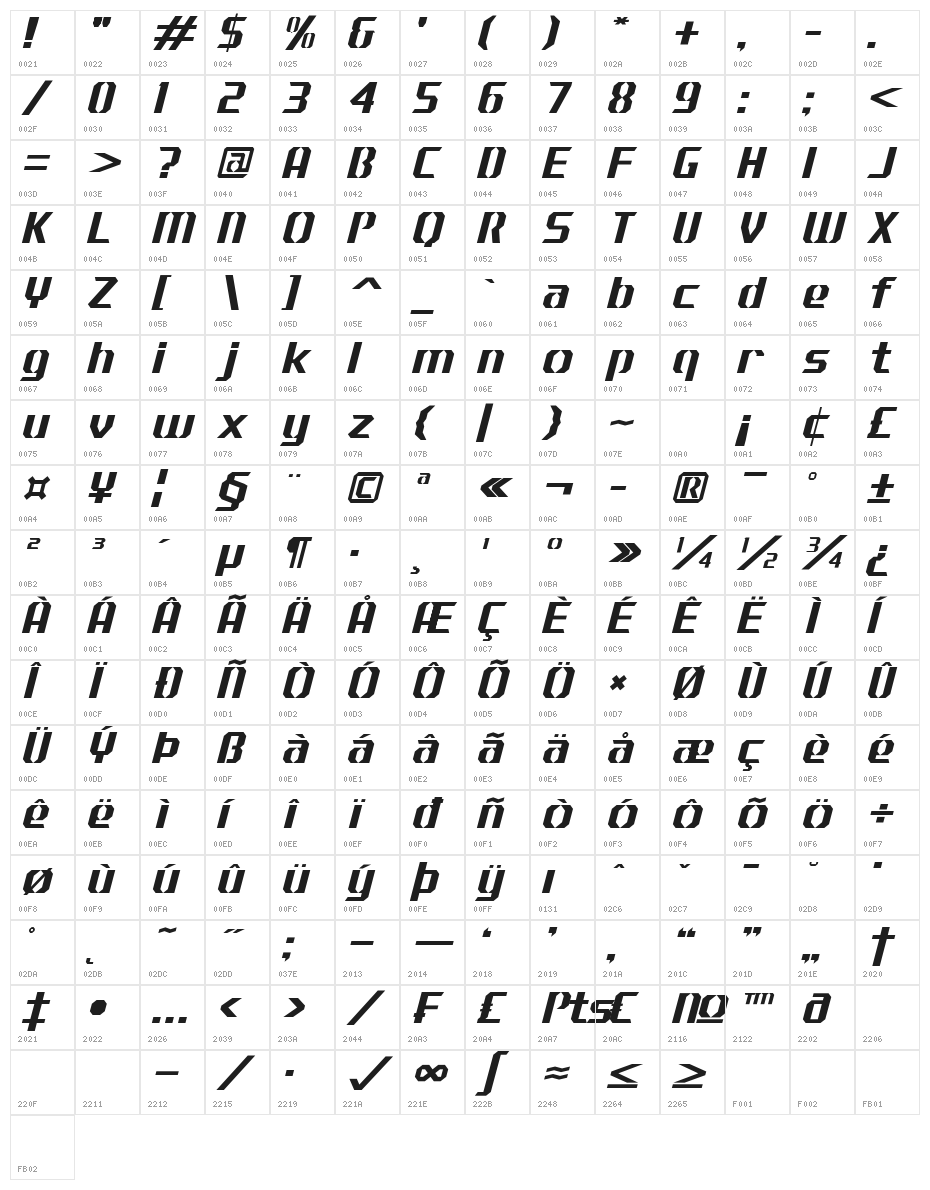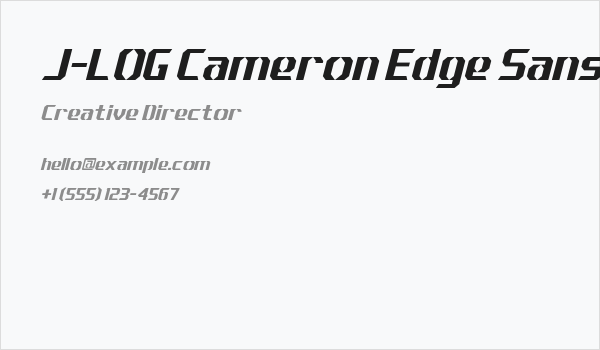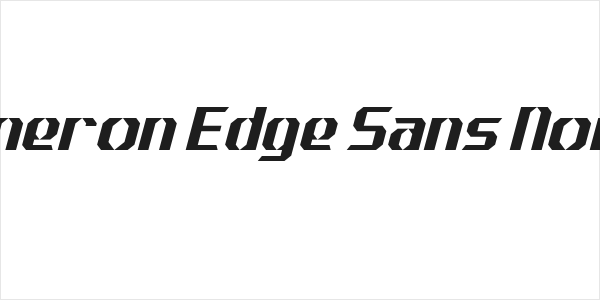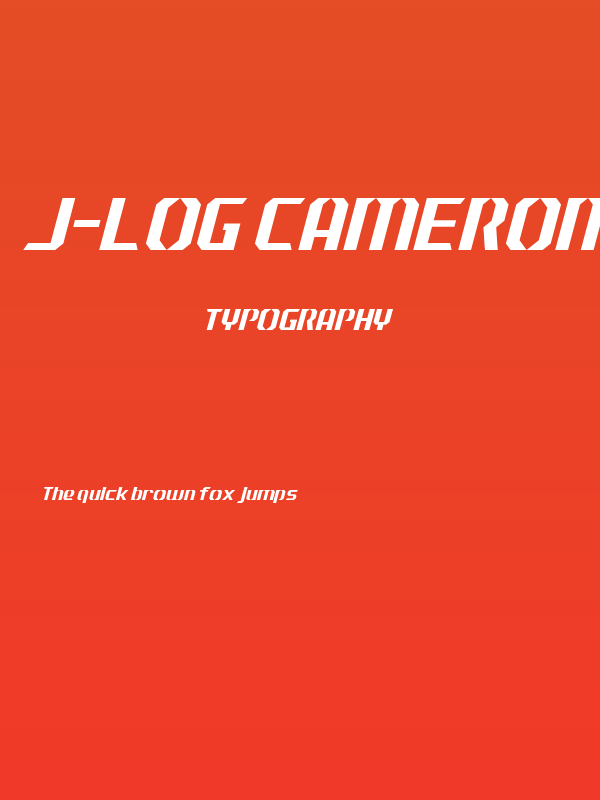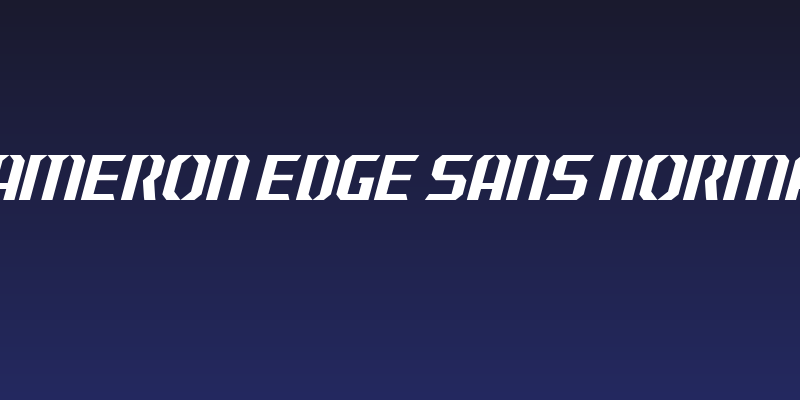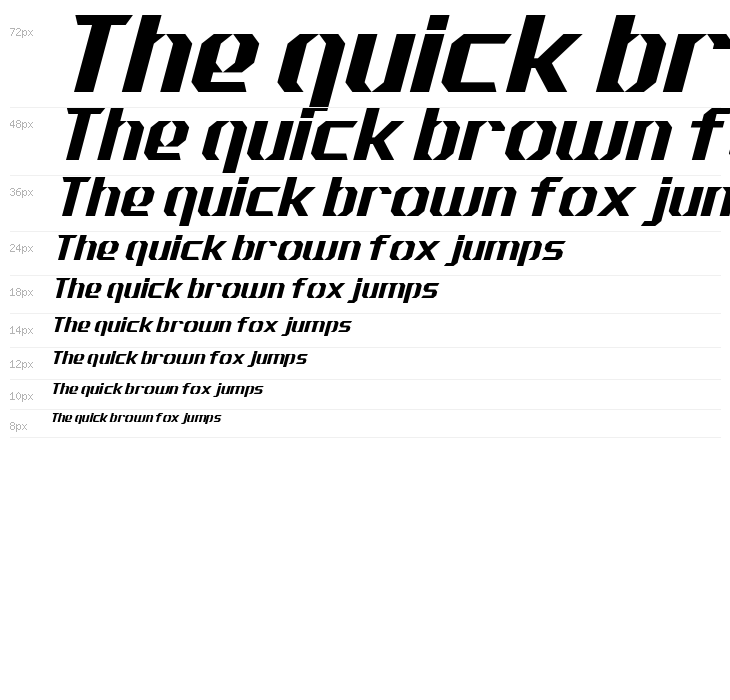
J-LOG Cameron Edge Sans Normal Italic Font
J-LOG Cameron Edge Sans Normal Italic Description
| Proposed Projects | Ideal for branding, sports team logos, modern posters, and dynamic advertising materials. |